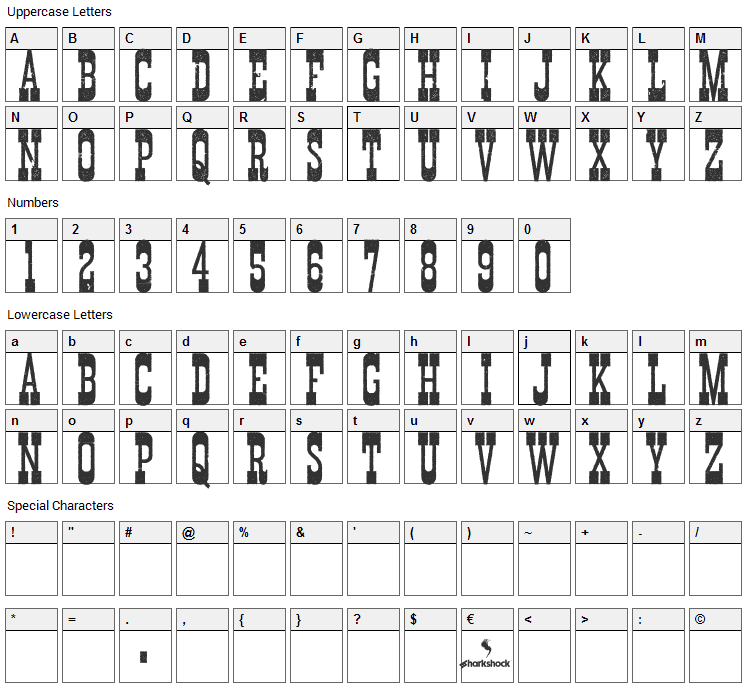
Durango Western Font
Howdy font fans! Searching for an authentic looking Western font? Designing a WANTED poster? Well Durango Western is the new sheriff in town. This all caps display font is defined by its close spacing and thick serifs for a recognizable appearance. Use it for a movie poster, social media, or team logo.
Basic/Extended Latin, European accents, punctuation, diacritics, kerning, and Cyrillic characters for Russian are included in the full version. The eroded version features 2 levels of distress between the uppercase/lowercase, contains a few alternates, and features less punctuation. Please check the glyph maps. The regular version does not contain alternates. Uppercase and lowercase are identical. The demo contains basic Latin and numbers only. The full version can be acquired for $25 for personal use only or purchase of a commercial license. Please visit www.sharkshock.net/license for info on commercial use. Please note that this 25$ does not constitute a license of any kind.